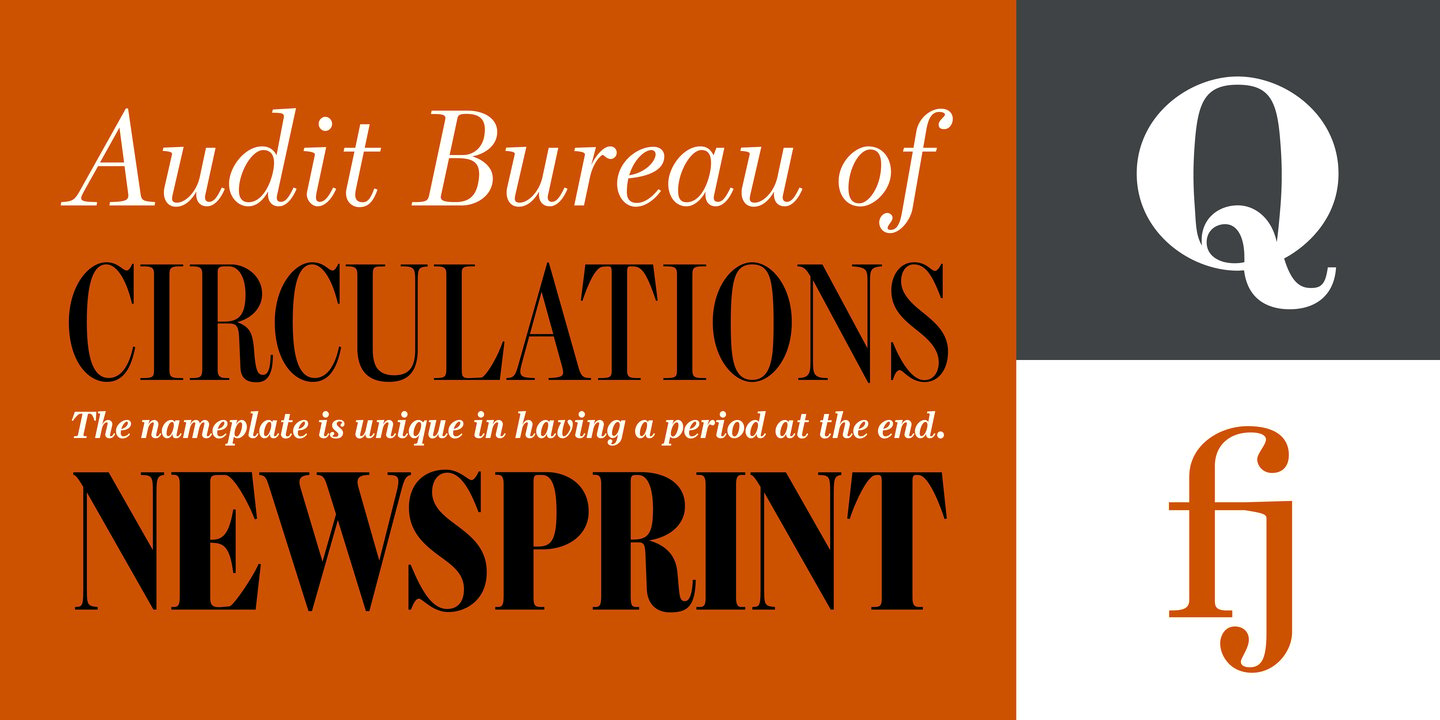
Escrow vs Lyon Text
Escrow and Lyon Text are both serif typefaces sharing a editorial foundation. Where Escrow leans didone, Lyon Text brings modern, elegant. Compare which suits your Editorial project.
Recommended: Escrow
- didone design character
- Suited for Newspapers and Books
- From font-bureau
Consider: Lyon Text
- modern, elegant design character
- Suited for News and Web
- From commercial-type